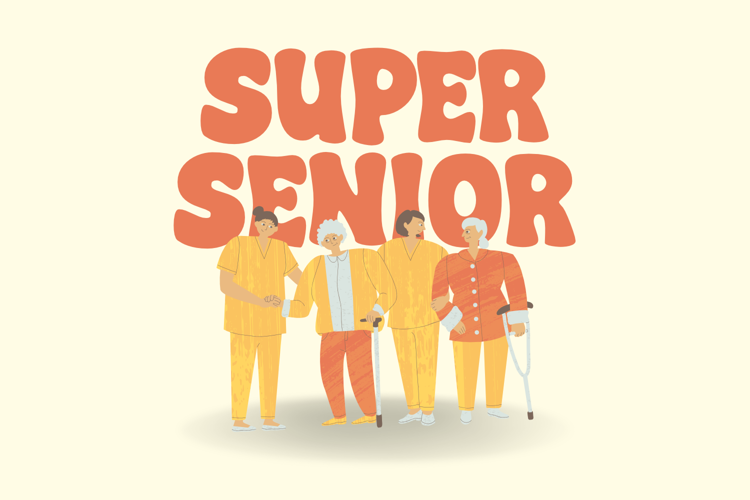
Super Senior Font
About Super Senior Font
Super Senior: A Bold, Round & Fun Font
Super Senior bursts onto the scene with a personality as big as its characters! This bold and round font is designed to bring a touch of fun and whimsy to any project.